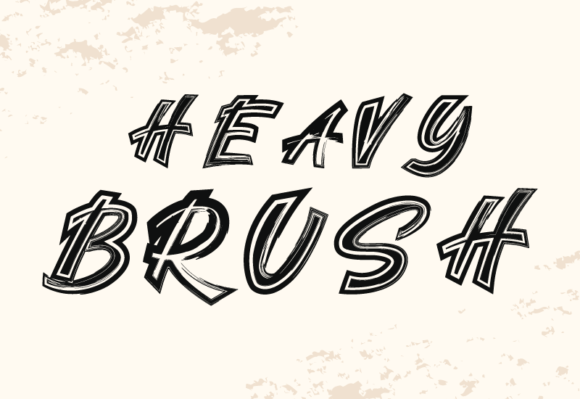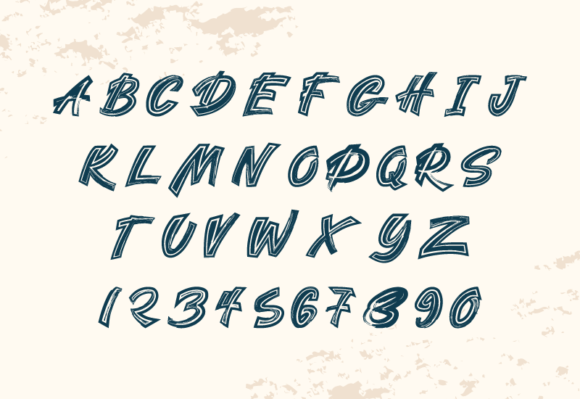
Unleash a Burst of Dynamism with the Heavy Brush Font
In the world of typography, few fonts manage to capture the essence of energy and dynamism as effectively as the Heavy Brush font. This electrifying font design is teeming with vigor, meticulously crafted to bring a burst of life to any design project. With its rapid strokes and crisp details, the Heavy Brush font is an eye-catching choice for a wide range of applications, from logos and branding to printable templates and text overlays.
A Robust Aesthetic for Impactful Designs
The Heavy Brush font boasts a robust aesthetic that is sure to make a statement. Its bold, sweeping strokes evoke a sense of movement and energy, injecting personality into any design. Whether you’re looking to create a logo that stands out from the crowd, add some pizzazz to your branding, or enliven your printable templates, the Heavy Brush font is an excellent choice. Its distinctive style is sure to capture attention and leave a lasting impression.
Elevate Your Designs with Heavy Brush
So, how can you use the Heavy Brush font to elevate your designs? Here are just a few ideas to get you started:
- Logos: Use the Heavy Brush font to create a bold, eye-catching logo that sets your brand apart. Its robust aesthetic is perfect for businesses that want to make a statement and assert their presence.
- Branding: Inject personality into your branding with the Heavy Brush font. Its distinctive style adds a touch of dynamism to any brand identity, helping to engage audiences and build recognition.
- Printable Templates: Bring your printable templates to life with the Heavy Brush font. Whether you’re creating posters, flyers, or brochures, this font adds a burst of energy and vibrancy that’s sure to capture attention.
- Posters and Flyers: Take your posters and flyers to the next level with the Heavy Brush font. Its vibrant energy and dynamic style make it perfect for promoting events, products, or services.
- Shirts and Apparel: Turn shirts and apparel into walking art with the Heavy Brush font. Its distinctive style is sure to make a statement, whether you’re creating custom t-shirts, hoodies, or hats.
- Text Overlays: Use the Heavy Brush font as a text overlay to supercharge any background image. Its bold, sweeping strokes add a touch of dynamism to any design, making it perfect for social media graphics, presentations, and more.
Why Choose the Heavy Brush Font?
So, why choose the Heavy Brush font for your design projects? Here are just a few reasons:
- Unique Style: The Heavy Brush font boasts a unique style that’s sure to set your designs apart. Its bold, sweeping strokes and crisp details make it a standout choice for any project.
- Versatility: The Heavy Brush font is incredibly versatile, suitable for a wide range of applications and design projects. Whether you’re creating logos, branding, or printable templates, this font is an excellent choice.
- Easy to Read: Despite its bold style, the Heavy Brush font is easy to read, even in smaller sizes. This makes it perfect for use in a variety of contexts, from headlines to body text.
- High-Quality Design: The Heavy Brush font has been meticulously designed with attention to detail, ensuring a high-quality finish that’s sure to impress.
In conclusion, the Heavy Brush font is an electrifying font design that’s sure to bring a burst of dynamism to any design project. Its robust aesthetic, unique style, and versatility make it an excellent choice for a wide range of applications, from logos and branding to printable templates and text overlays. Whether you’re a designer, crafter, or simply someone looking to add some pizzazz to your designs, the Heavy Brush font is an excellent choice. So why not give it a try and see the impact it can have on your designs?